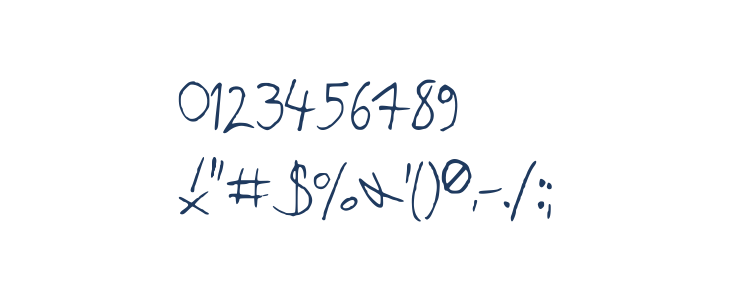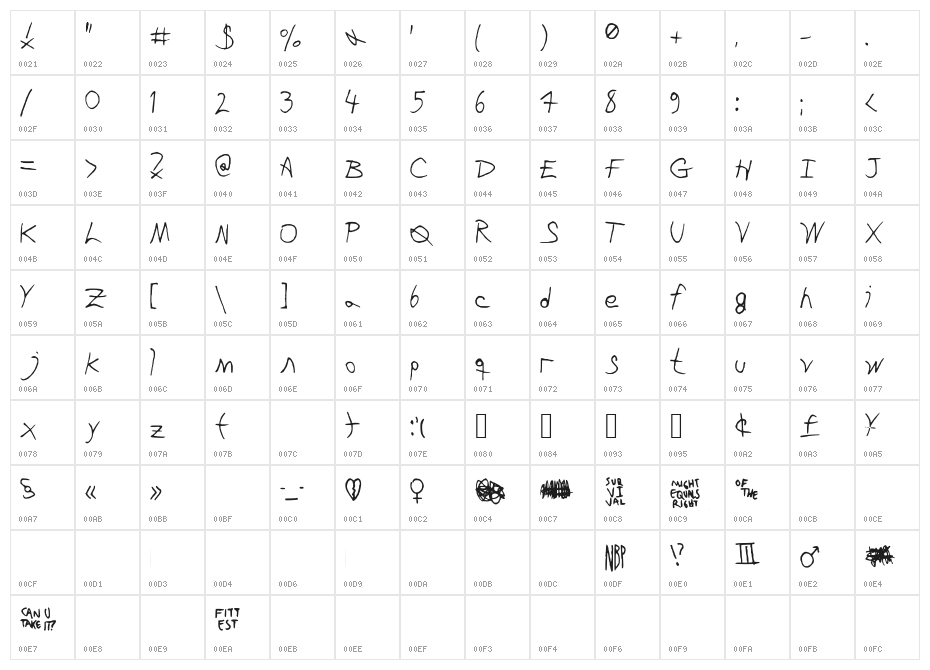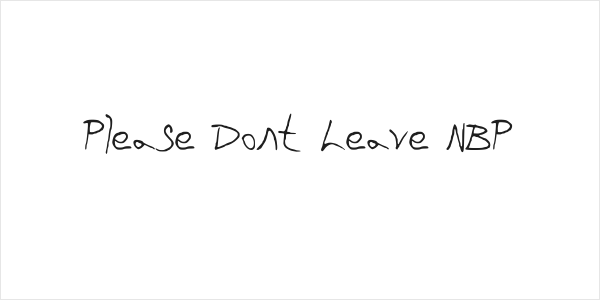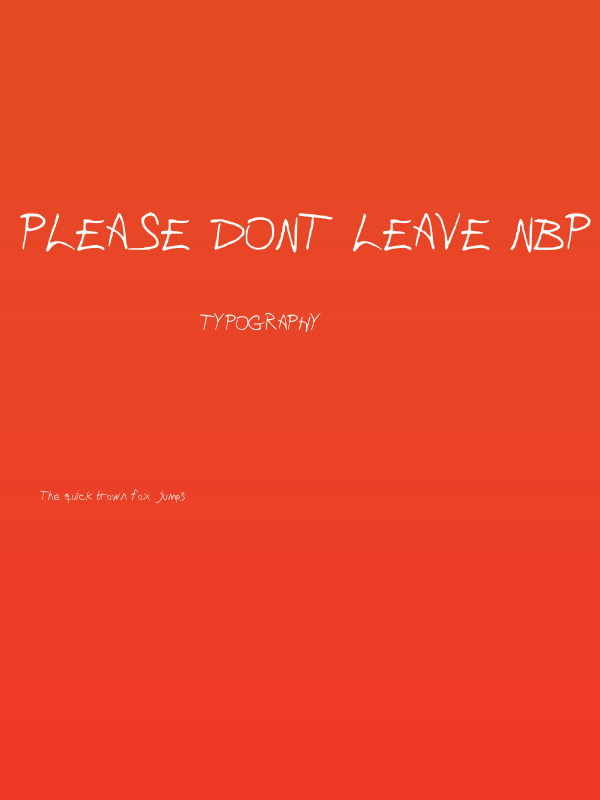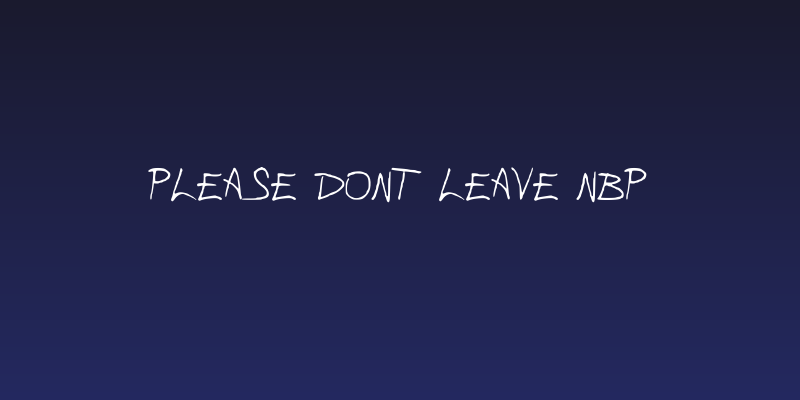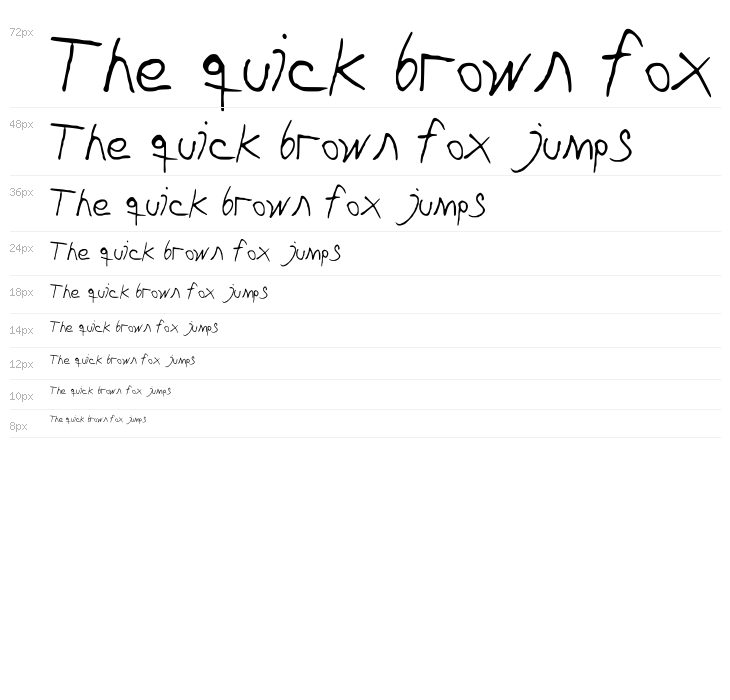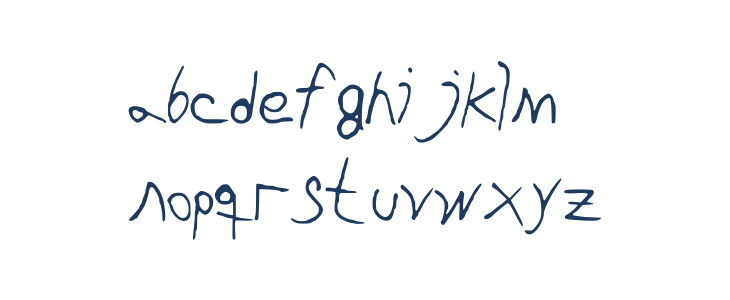
Please Dont Leave NBP Font
Please Dont Leave NBP Description
This font exudes a casual and playful handwritten style, characterized by its irregular and slightly whimsical letterforms. Each character is uniquely crafted, giving the font a personal and informal touch. The strokes are uneven, with varying thickness that adds to its charm and authenticity. The uppercase letters maintain a consistent height, while the lowercase letters display a more varied baseline, enhancing the handwritten feel. Numbers and special characters are crafted with the same playful spirit, making them blend seamlessly with the alphabet. This font is perfect for projects that require a personal, human touch, such as greeting cards, invitations, or creative posters.
Overall StyleCasual, Playful
Use CaseHeadlines, Informal text, Creative projects
Proposed ProjectsIdeal for greeting cards, invitations, creative posters, and personal projects.